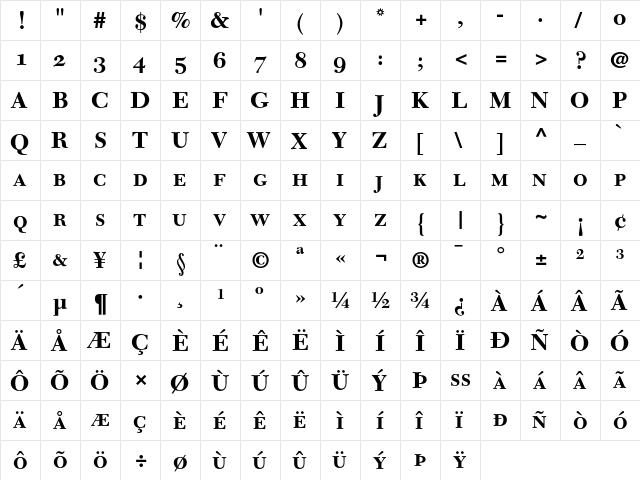
New Caledonia Bold Small Caps & Old Style Figures
| Style | Bold Small Caps & Old Style Figures |
Design Context for New Caledonia Typeface
New Caledonia offers clean, dependable letterforms without strong stylistic allegiance, making it a practical choice for designers who need flexibility. Its bold stroke weight gives it real presence on the page.
Pro Tip: Pair New Caledonia with a font of contrasting weight or personality to build a more expressive typographic hierarchy.